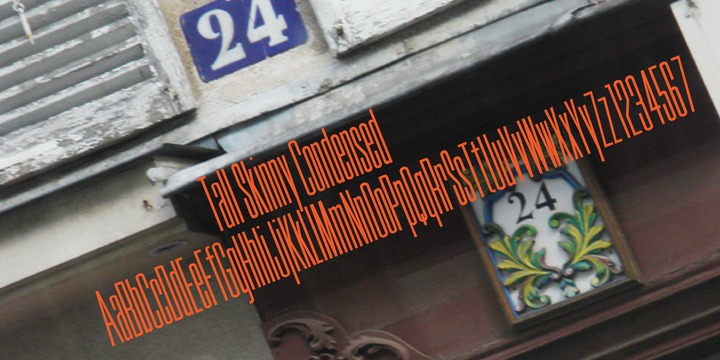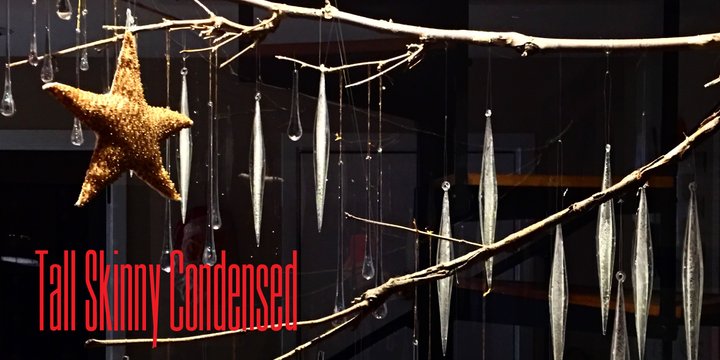
Tall Skinny Condensed (1 font)
This is the tallest, skinniest, most condensed, non serif font I know of. I designed this because I felt a serious need for that one big, thin word to fit in a narrow space.
It is great for ‘SALE!’ in a one column ad. Also is a life saver for several long words in a narrow space like Merry Christmas...
If you need a full character set take a look at the new Ultra Condensed 3 font family. Ultra Condensed was based on Tall Skinny Condensed with some changes and a full character set. Ultra Condensed Lettered is a hand lettered version and Ultra Condensed Line is a lighter hand drawn version